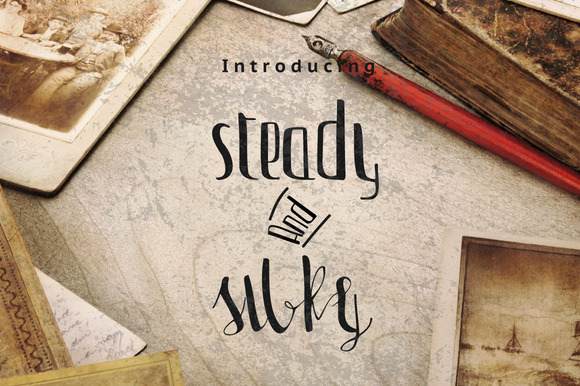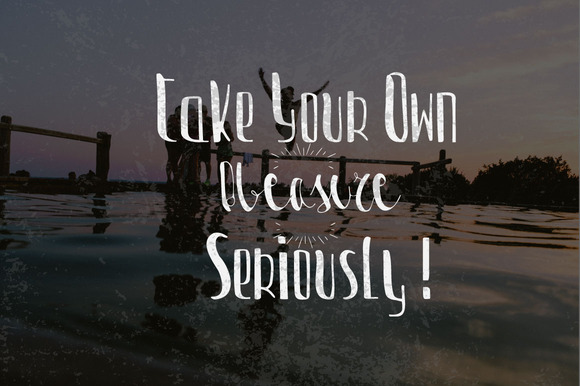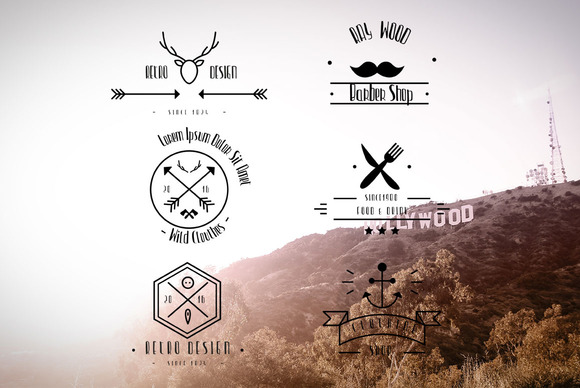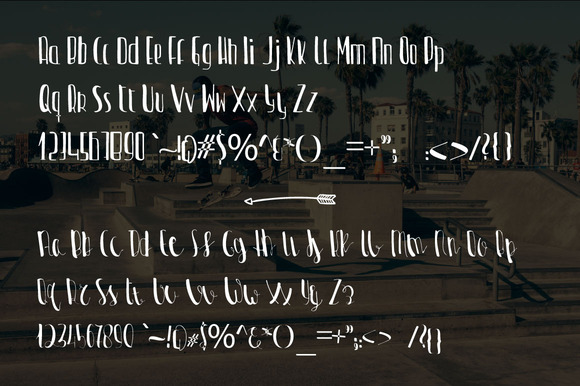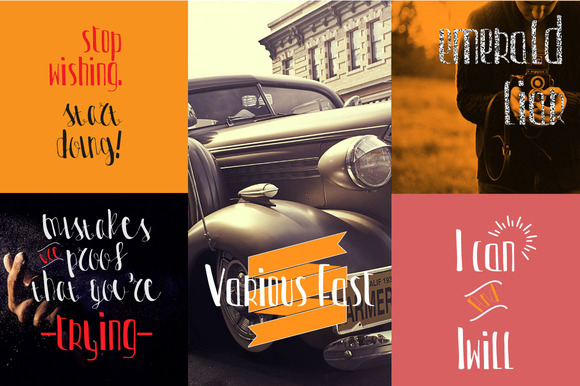
Steady & Silky Font
About Steady & Silky Font
Steady is handmade formal script font cooked with allot of feeling. Including a tons of glyph’s, alternates, ligatures.